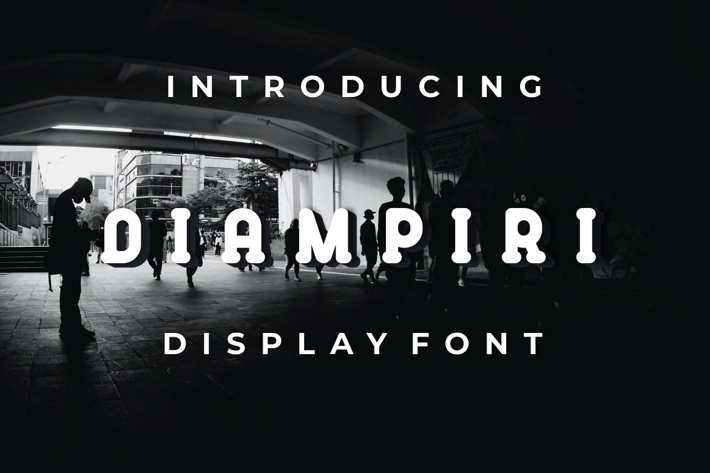
DIAMPIRI Font
Introducing our new product DIAMPIRI Font - Modern Font
DIAMPIRI Font - Modern Font is a bold and authentic display font. The font is suitable for any branding project like logo, t-shirt printing, esport, and many more. outstanding in a wide range of contexts.